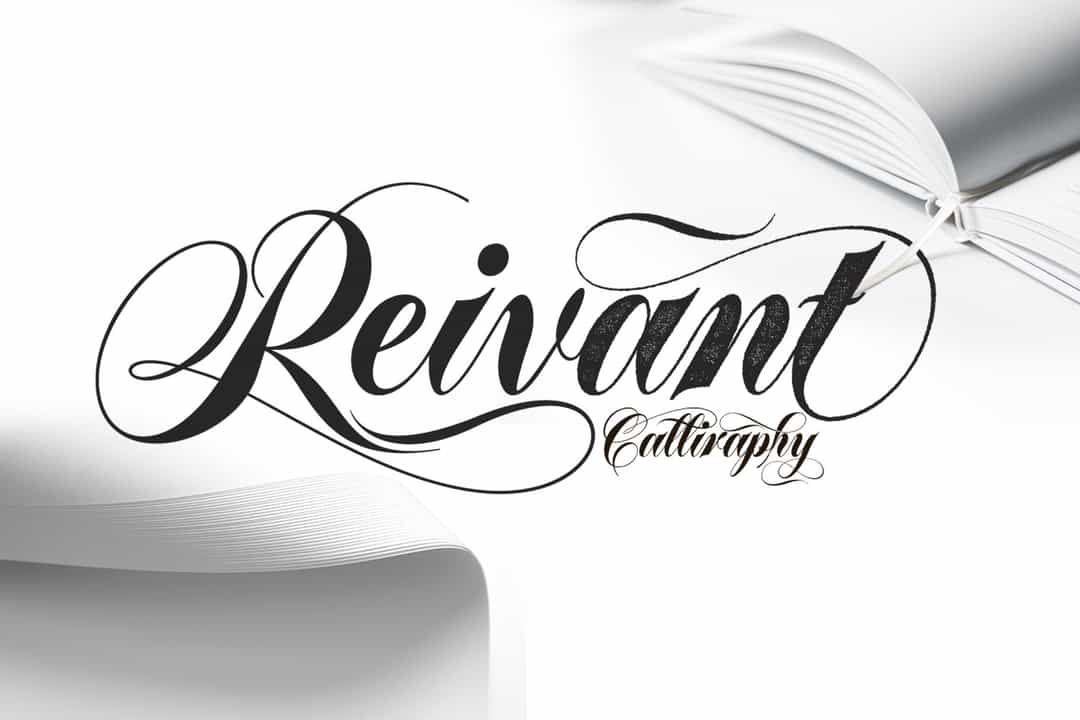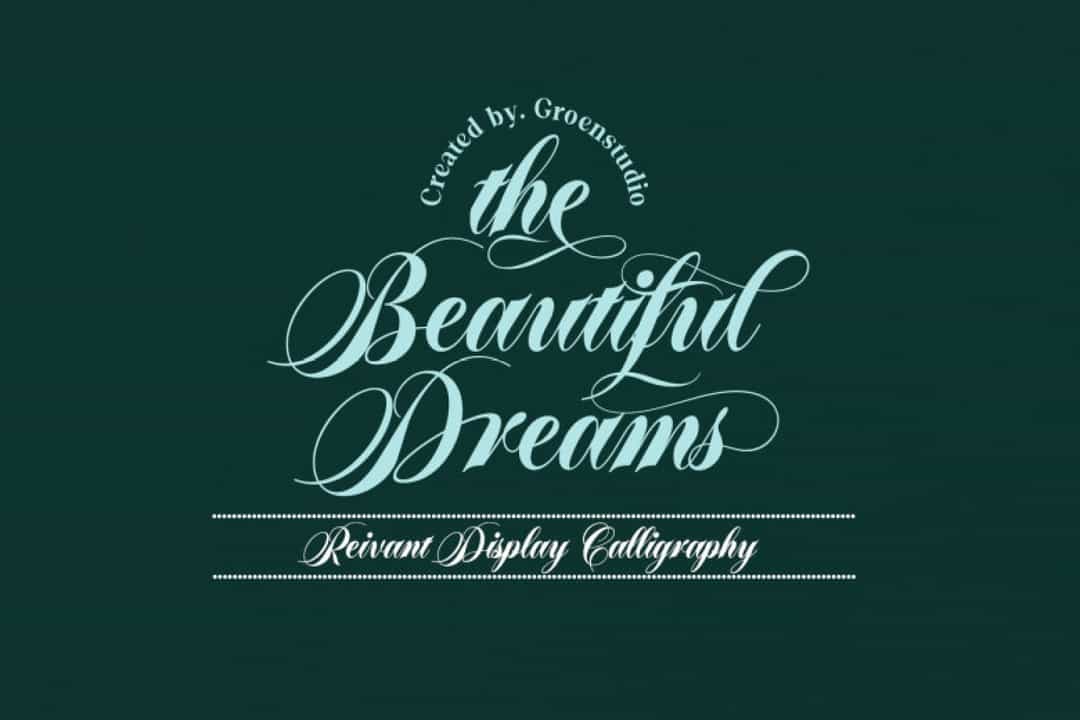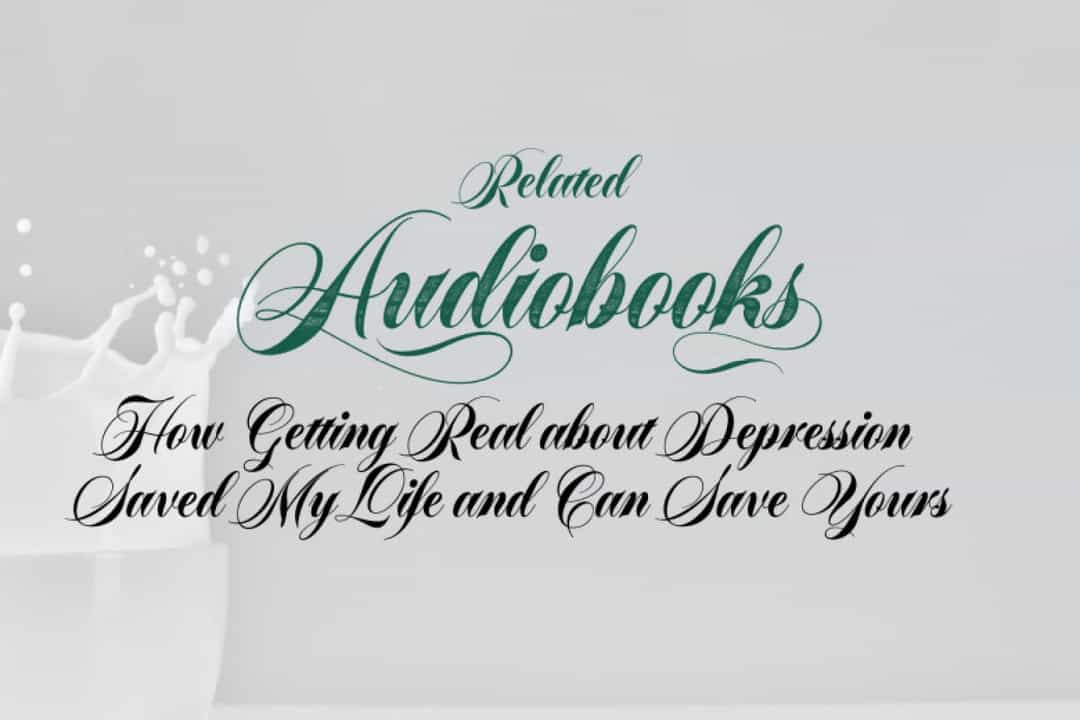
Reivant is an exquisite handwritten script font designed with romantic flourishes in mind, perfect for greeting cards and headlines, which add a charmingly nostalgic appeal. PUA encoded typeface allows access to its breathtaking characters and swashes easily!